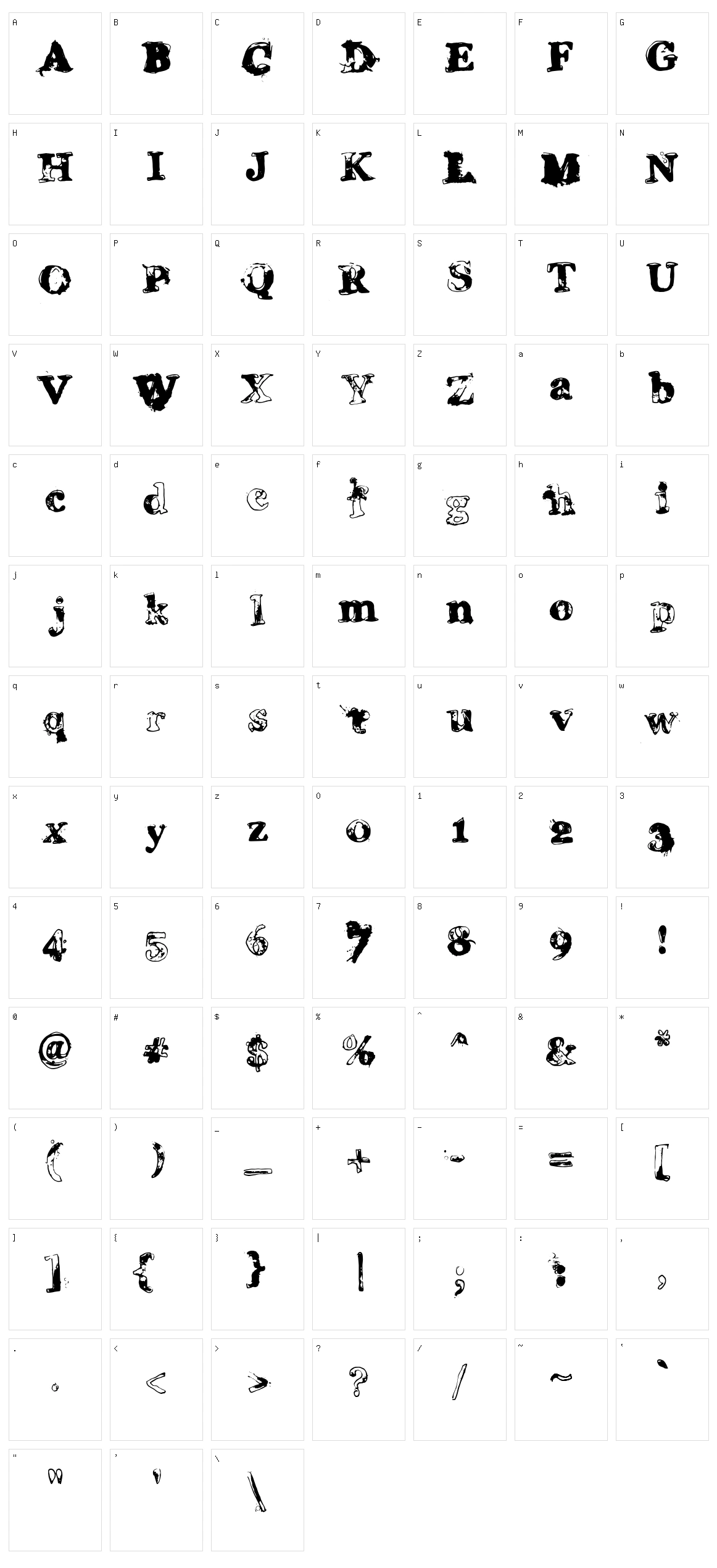
The free font Grease Monkey is carefully designed by Daniel Shinn, showcasing a thoughtful balance of creativity and usability and falls under the Eroded font style. When you download the ZIP file, it contains only 193.56 KB of font files, making it lightweight and quick to download. Please review the license details below to understand permitted usage and distribution rights. If license information is not available, we recommend using this font for personal projects only or contacting the author directly for commercial usage permissions.